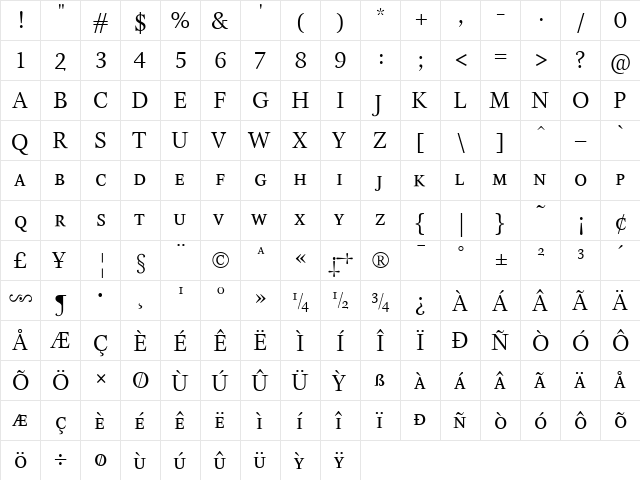
EstaSmallCaps Regular
Design Context for EstaSmallCaps Typeface
EstaSmallCaps offers clean, dependable letterforms without strong stylistic allegiance, making it a practical choice for designers who need flexibility.
Pro Tip: Use EstaSmallCaps in both headline and body roles to test its range before committing to a single application.